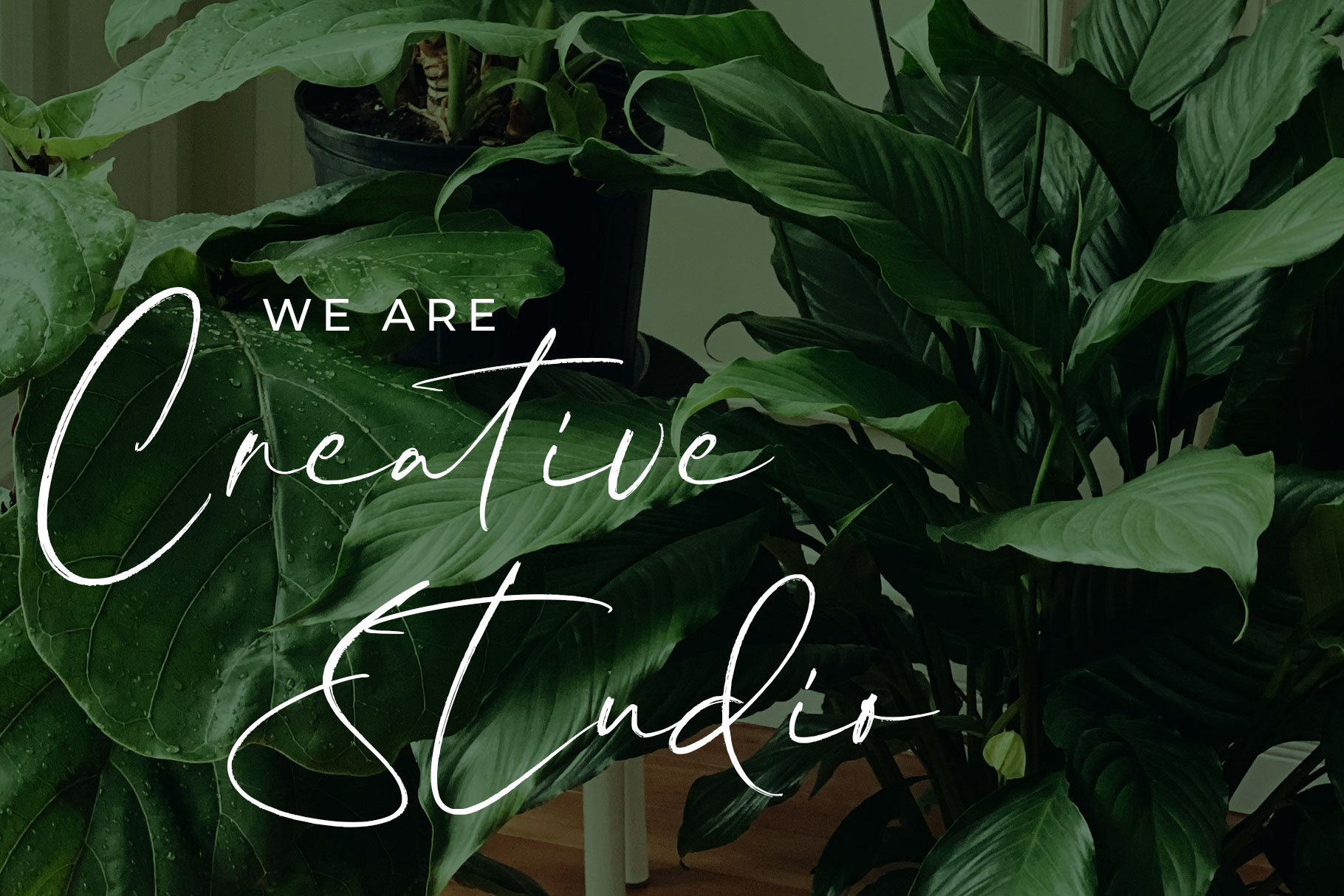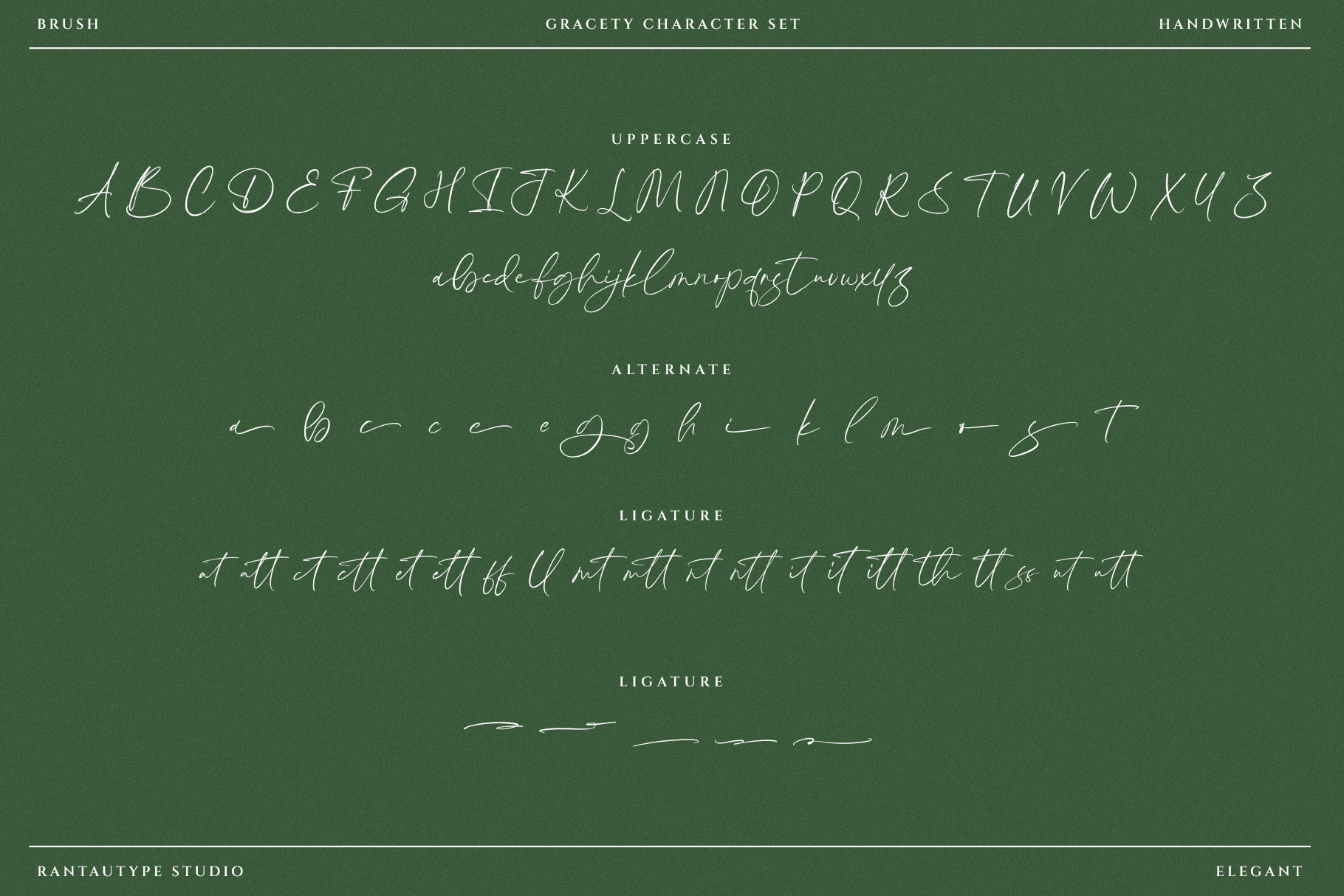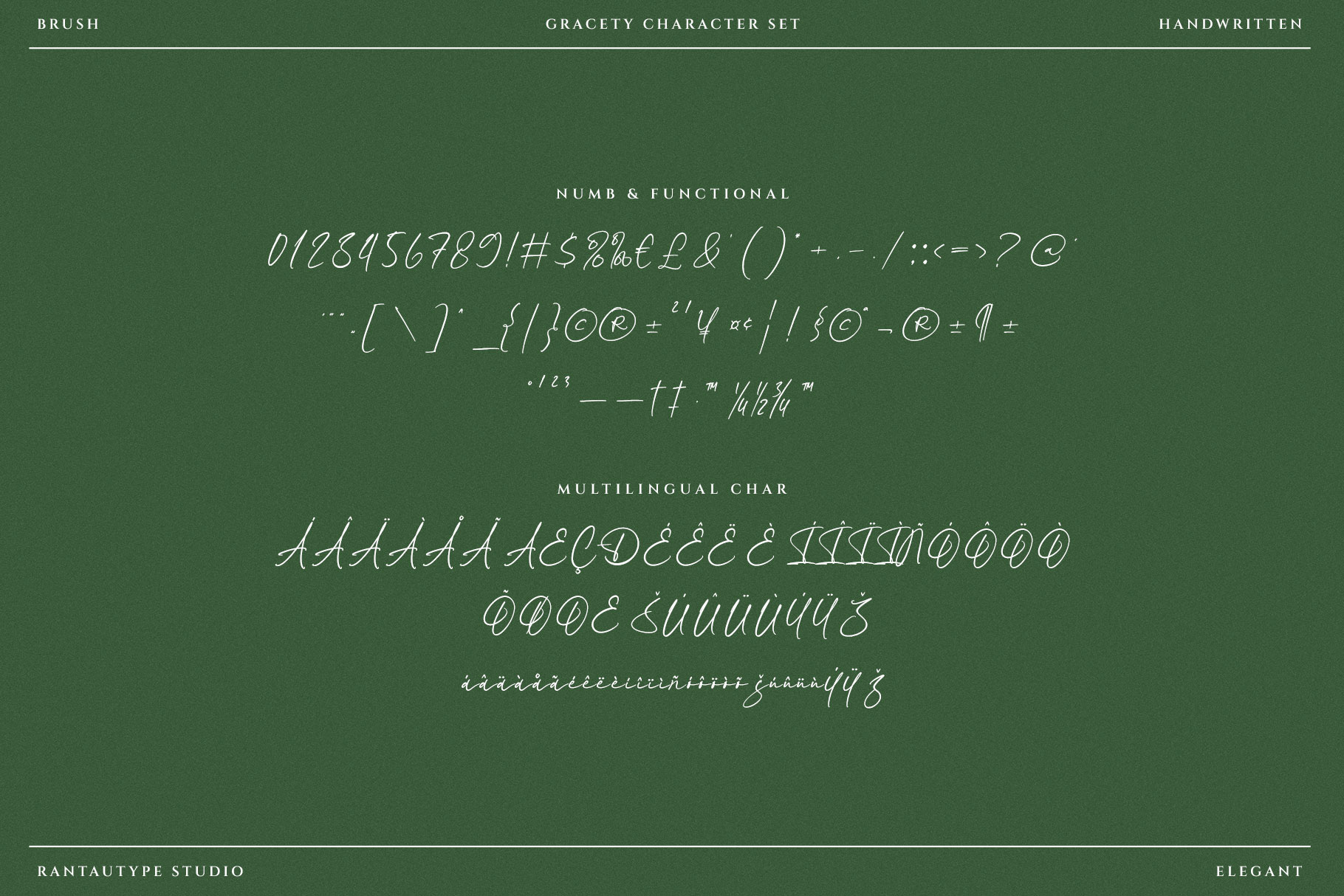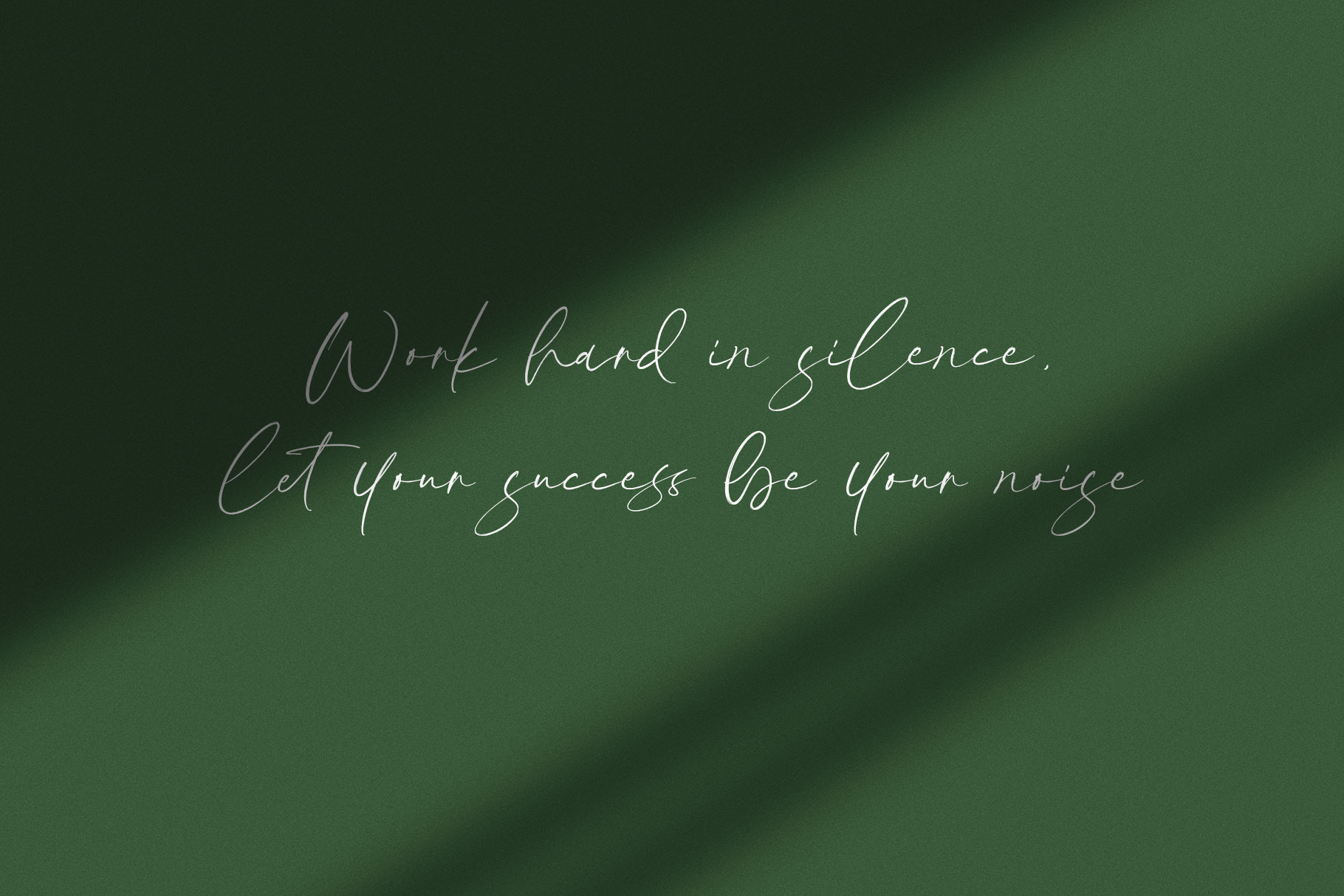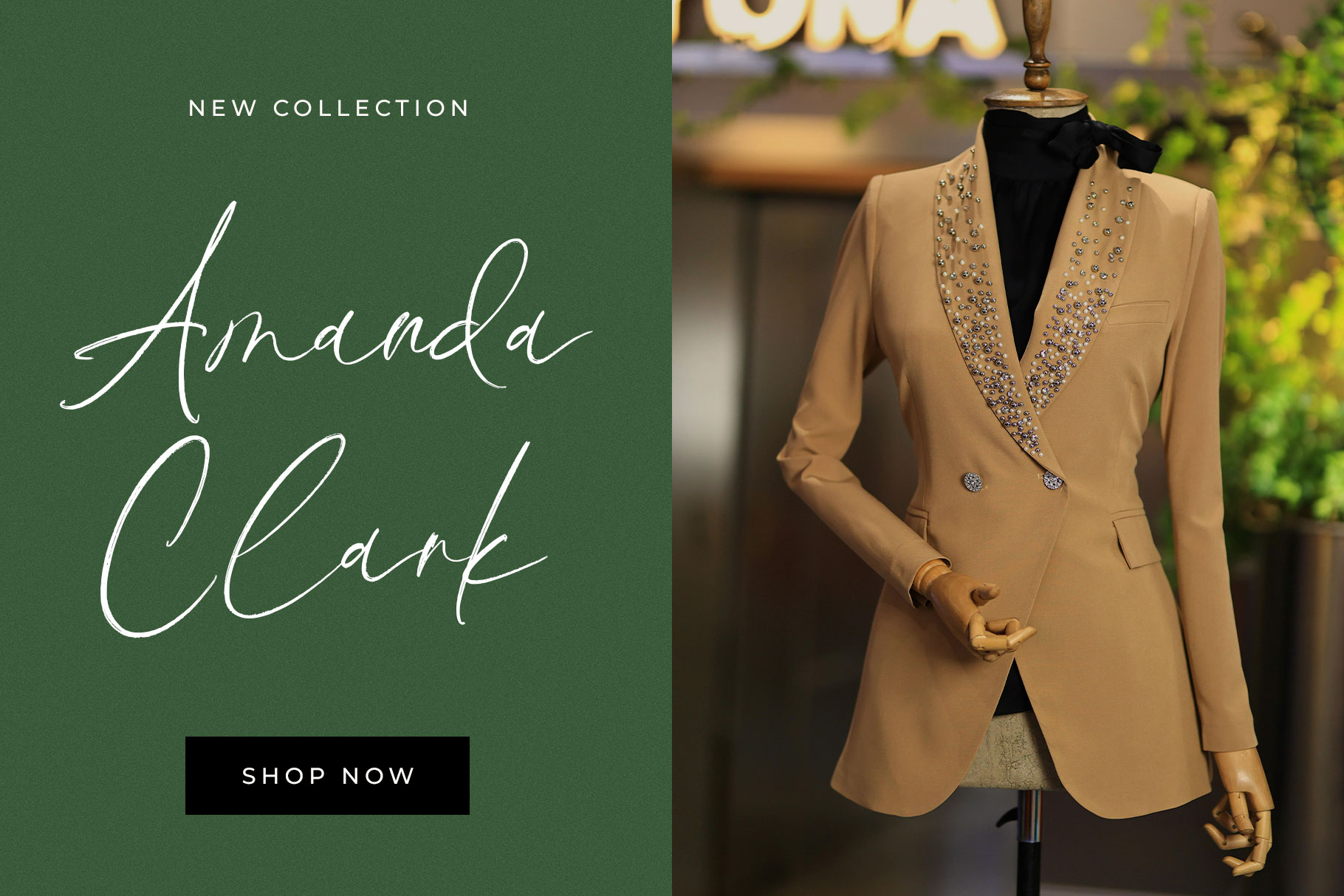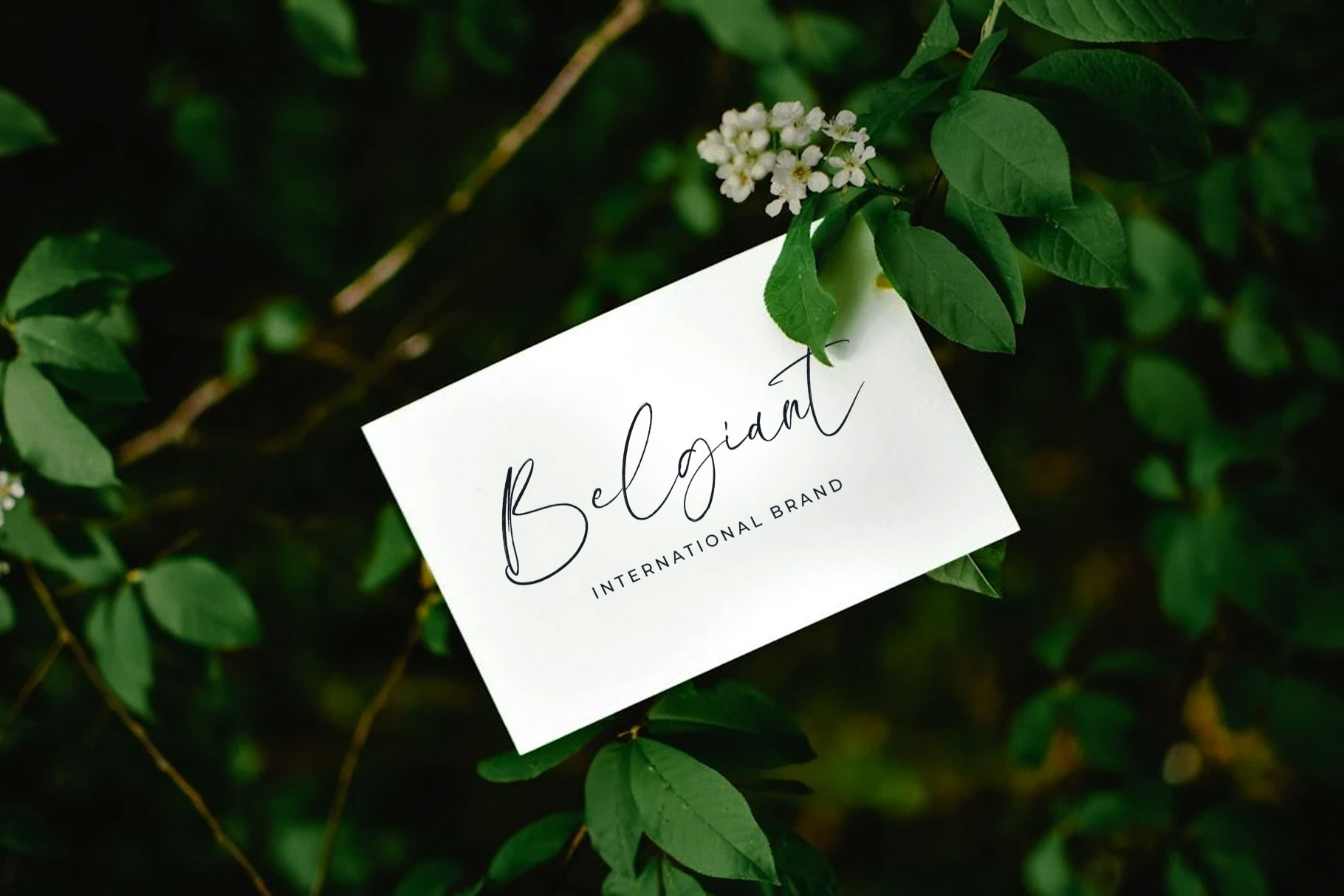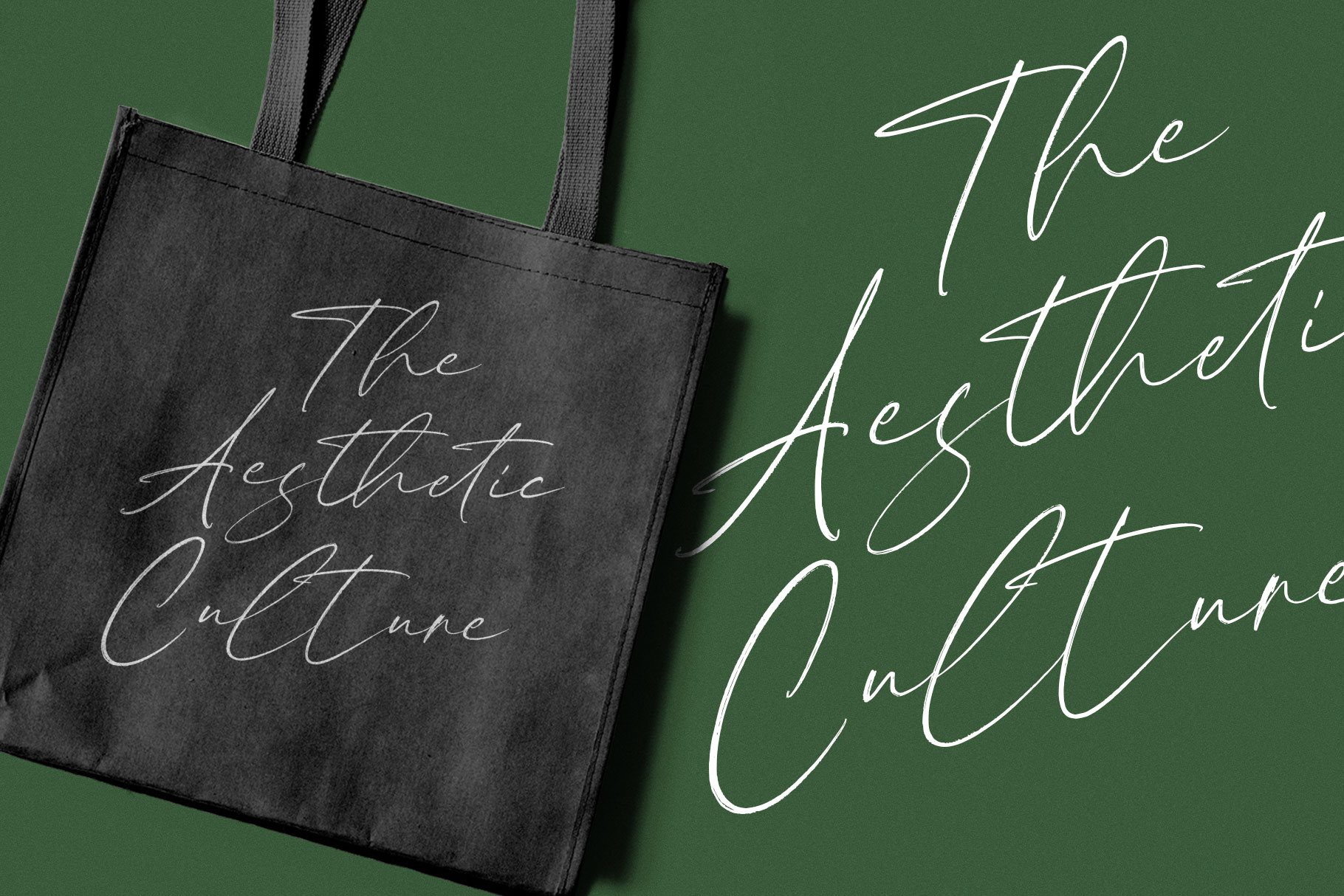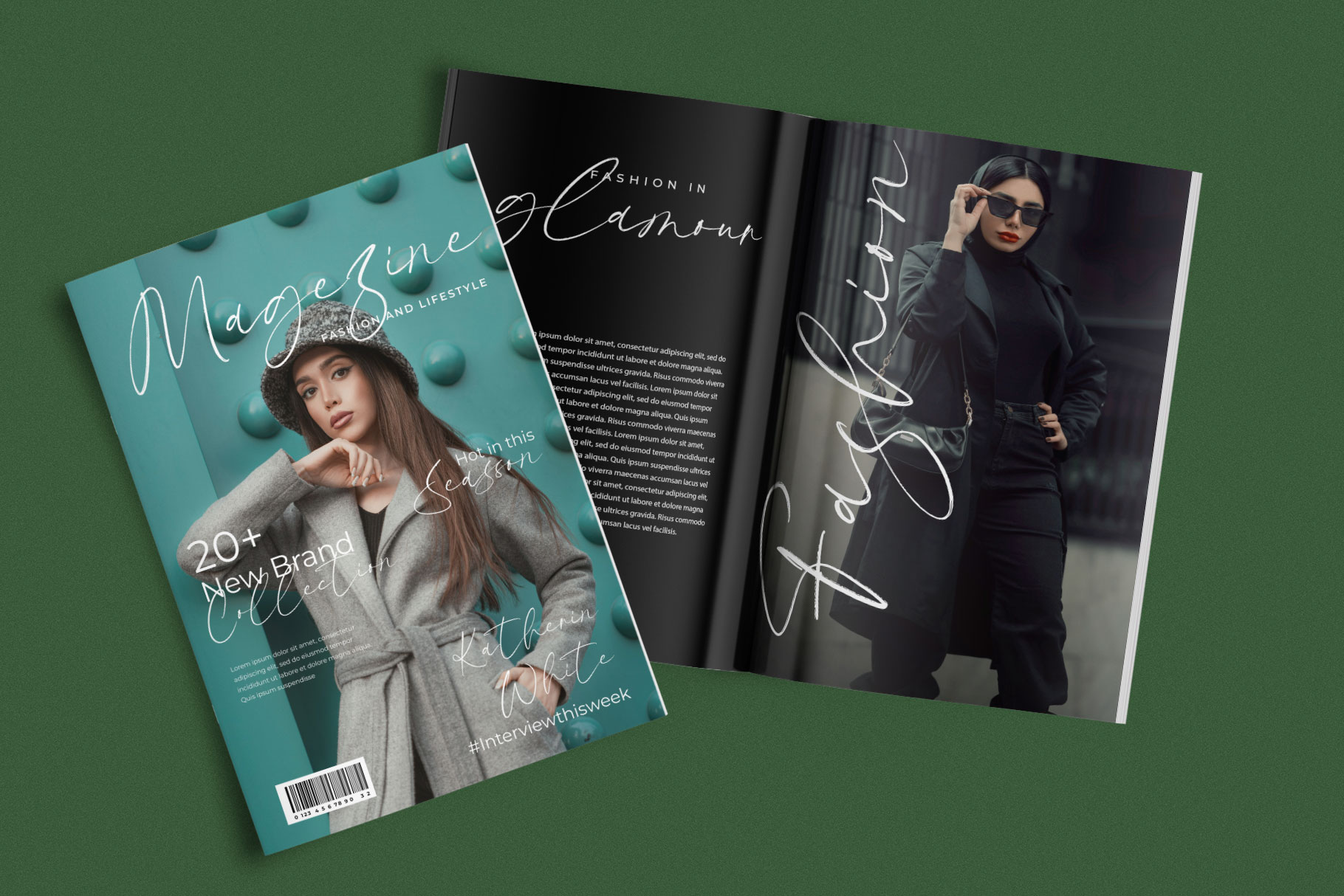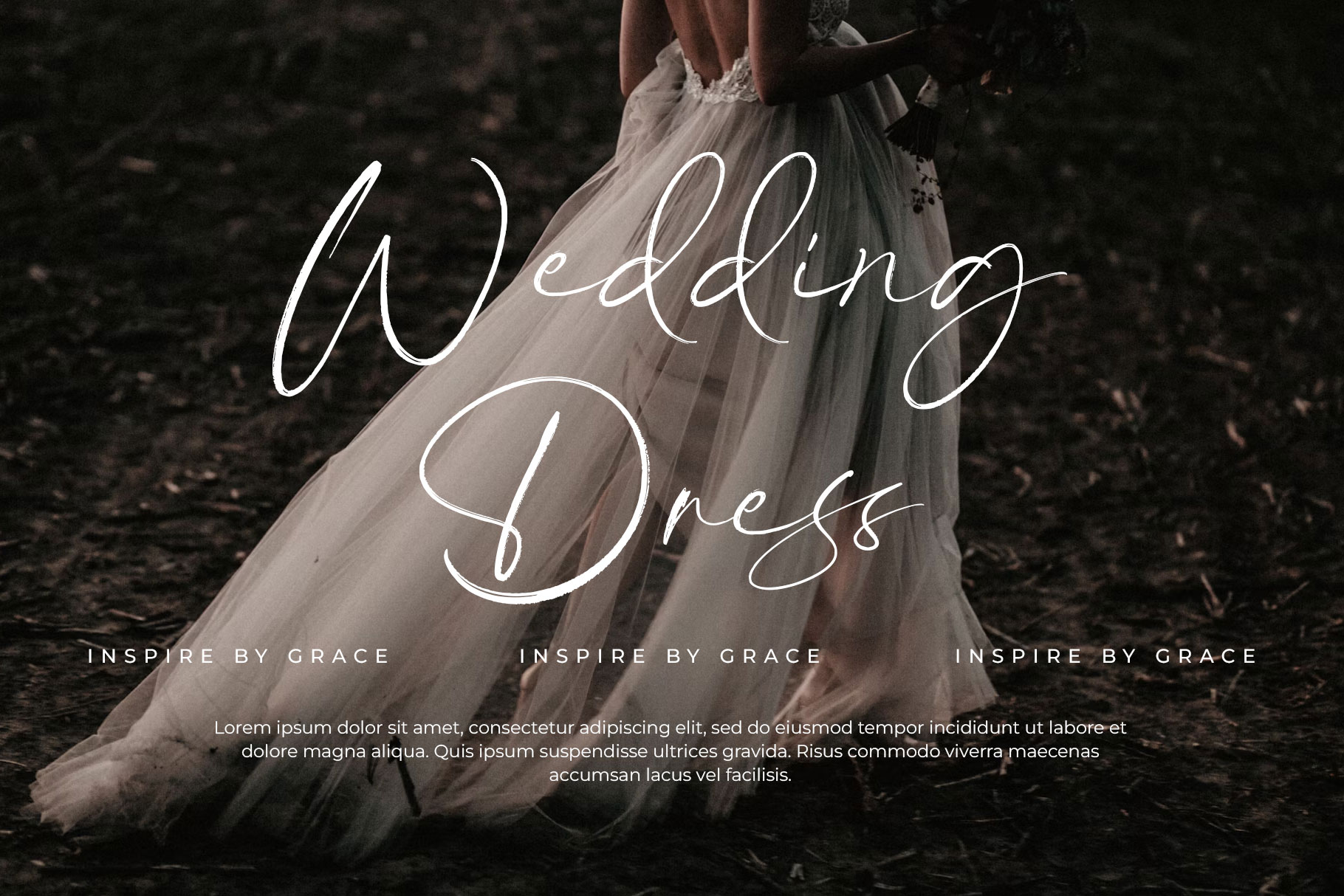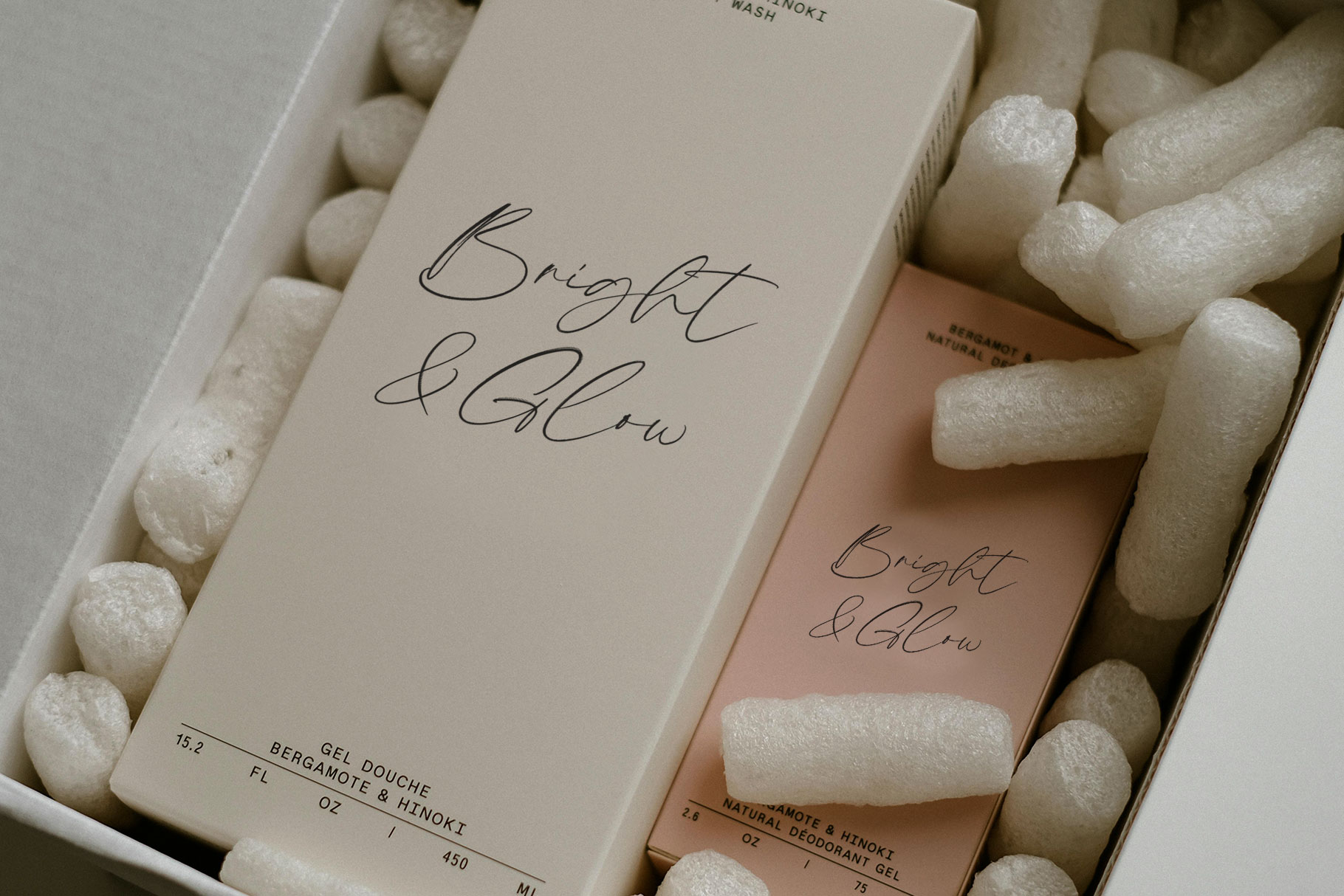
Gracety Handwritten Brush Font
Gracety is handwritten brush font embrace grace and sophisticated. Gracety is a perfectly choice for any creative endeavor, creating, modern, chic, lifestyle design such as logotype, title, cover, branding, invitations, wedding designs, display and magazine, social media posts, advertisements, printed quotes, product packaging, corporate brand, product designs, labels, photography, watermarks, special events and any other project with modern touch.